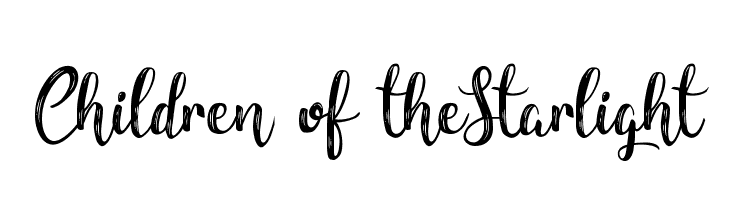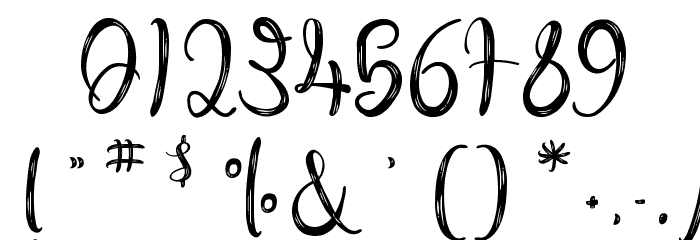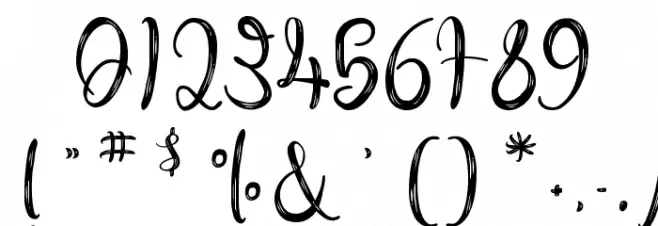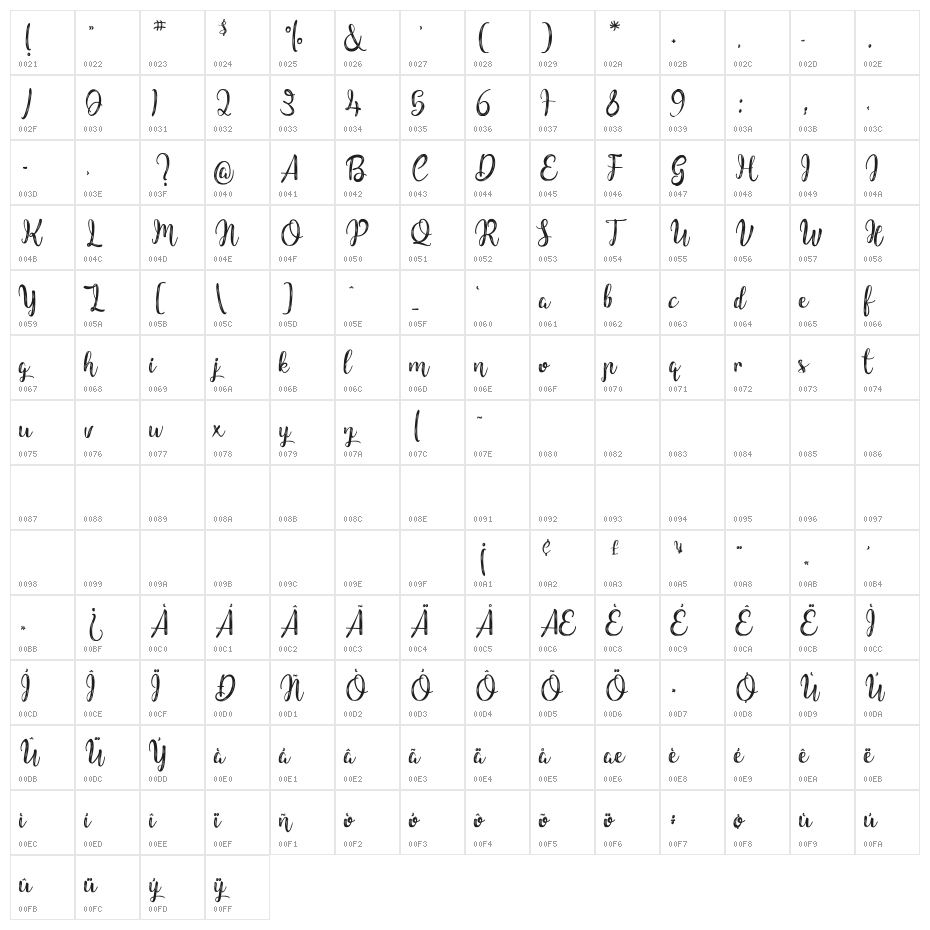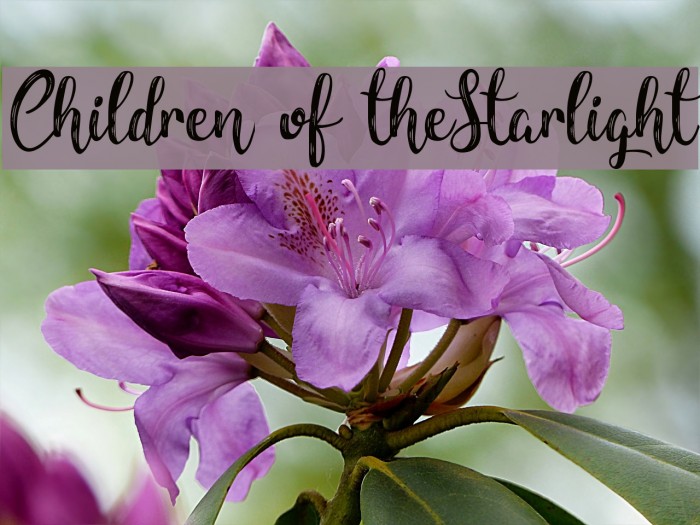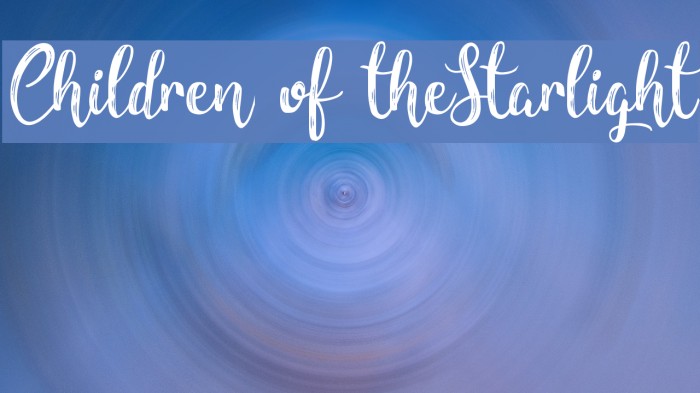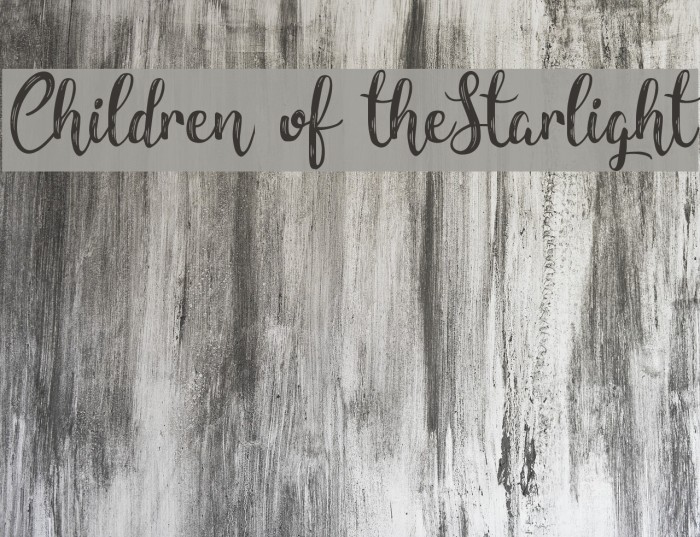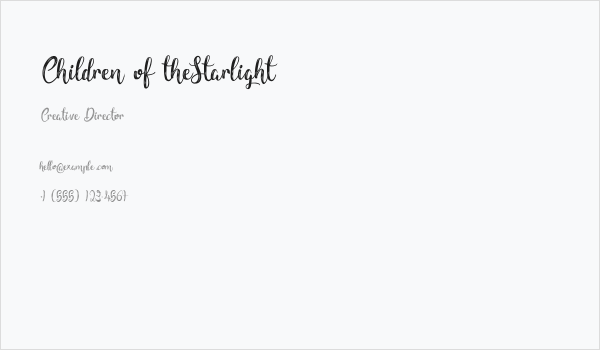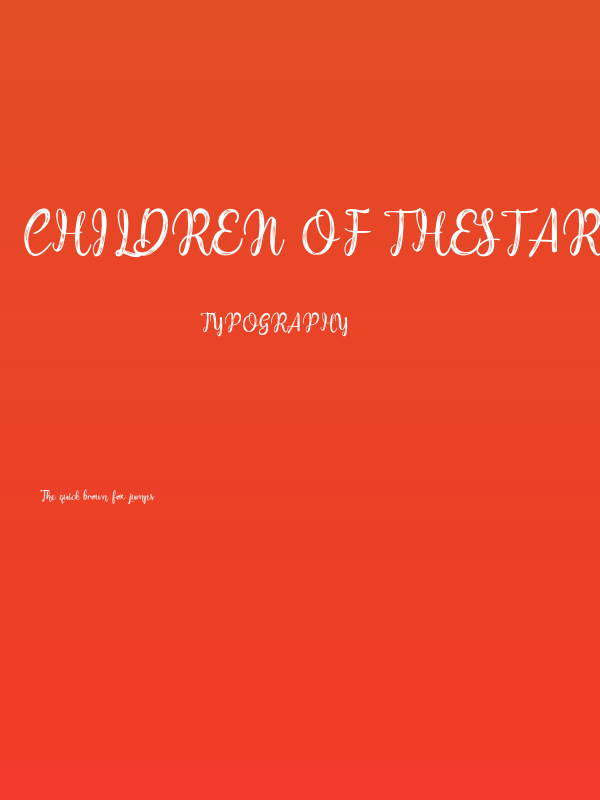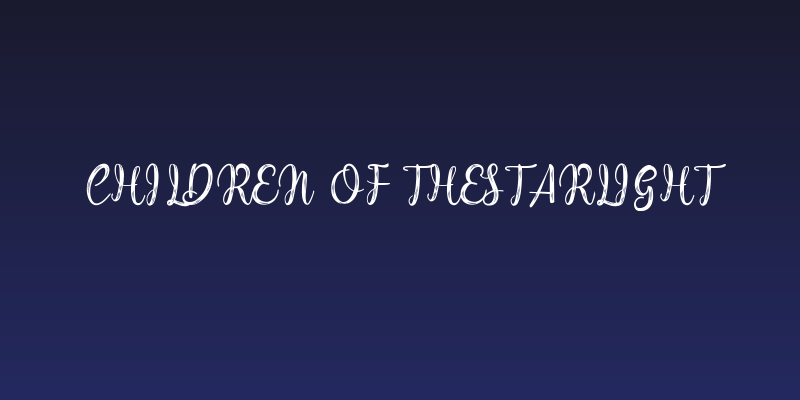
Children of theStarlight Font
Children of theStarlight Description
This font features an elegant, flowing script style with a hand-drawn appearance. The uppercase letters are ornate, with sweeping curves and loops that give a sense of movement and grace. The lowercase letters maintain a consistent style, with smooth connections between characters, enhancing readability while retaining a decorative flair. The numerals are bold and distinct, matching the overall aesthetic with their curved lines. Special characters are thoughtfully designed to complement the alphabet, ensuring a cohesive look across all text elements. This font exudes a whimsical yet sophisticated charm, making it suitable for creative and artistic projects.
A decorative script font with elegant, flowing lines and a hand-drawn aesthetic from Uncategorized fonts.